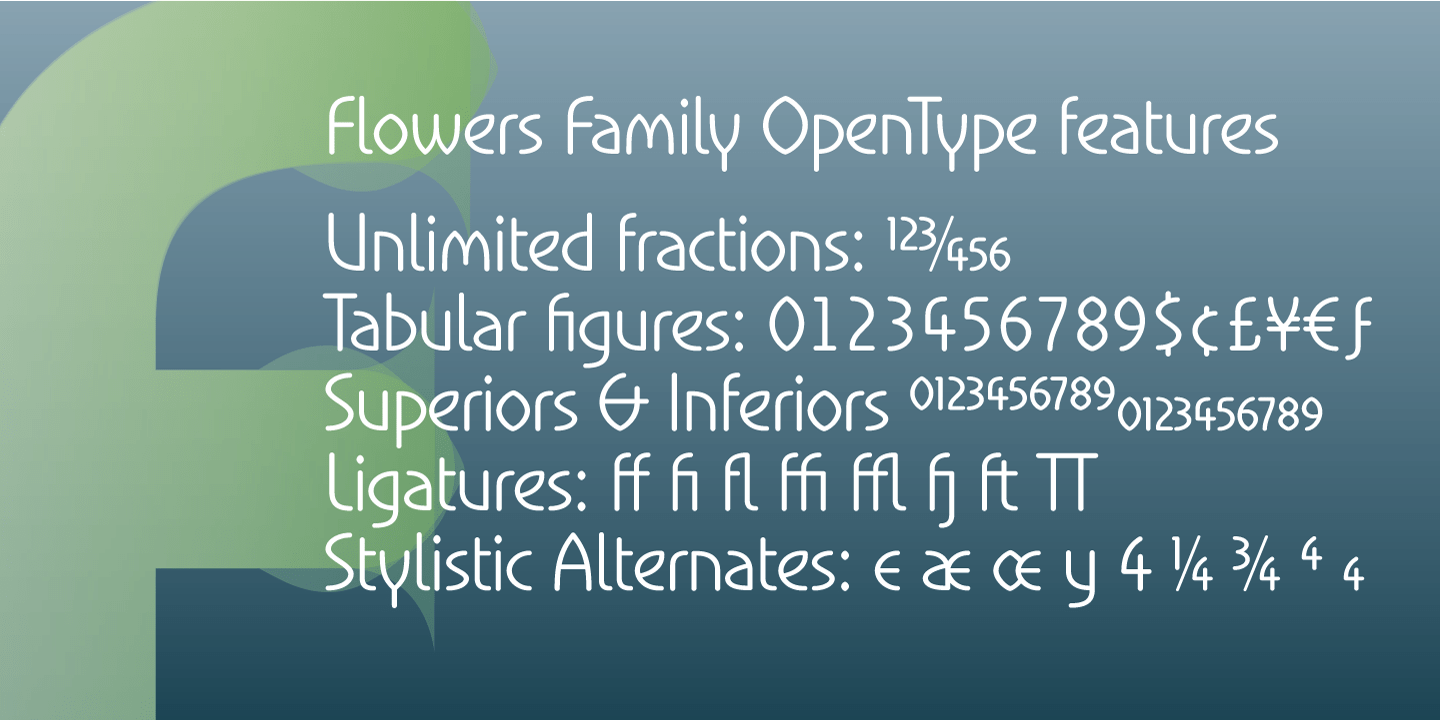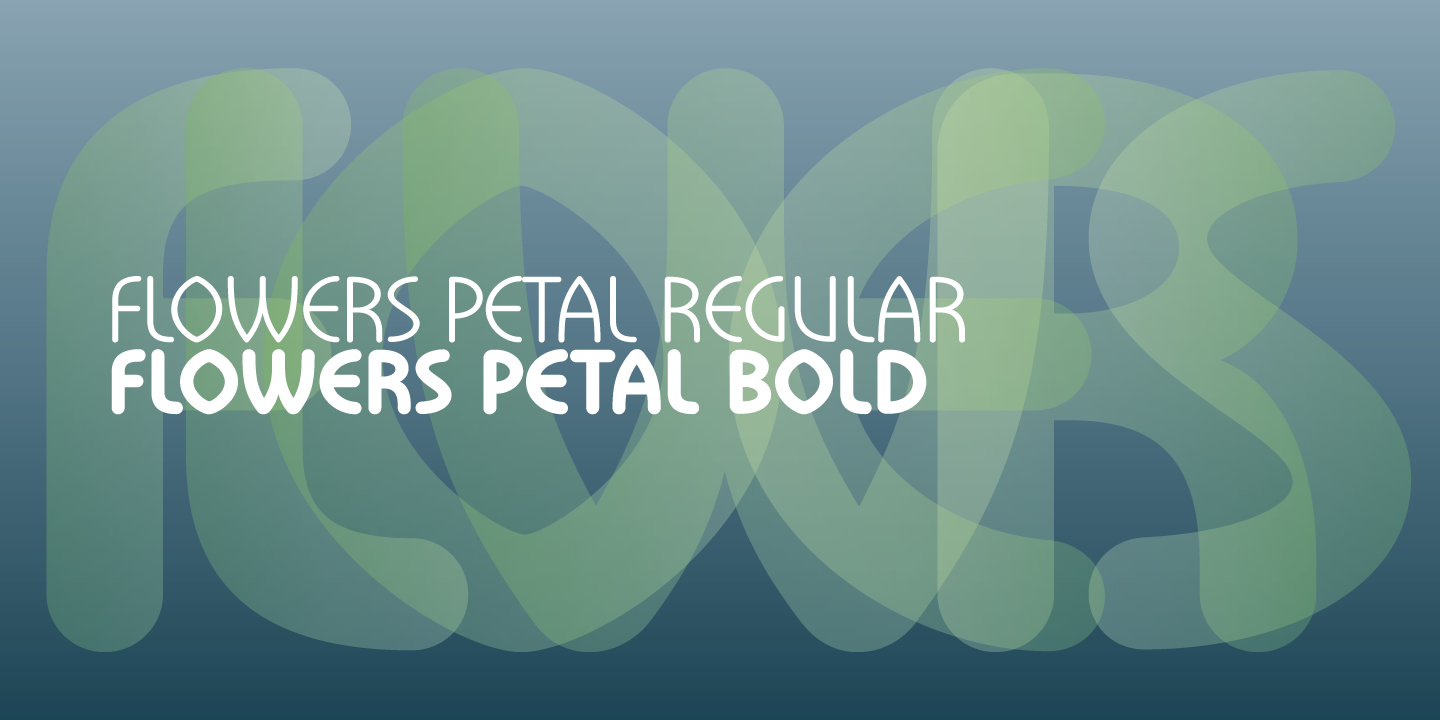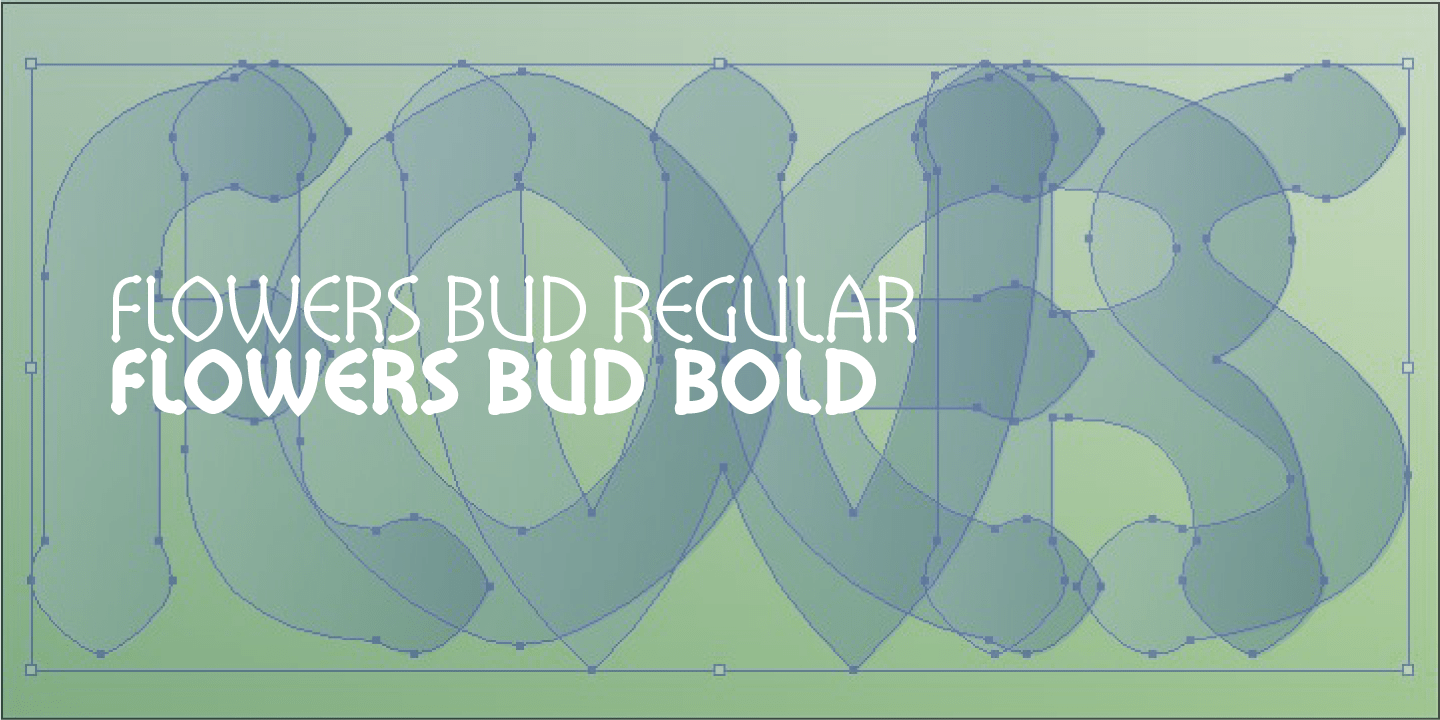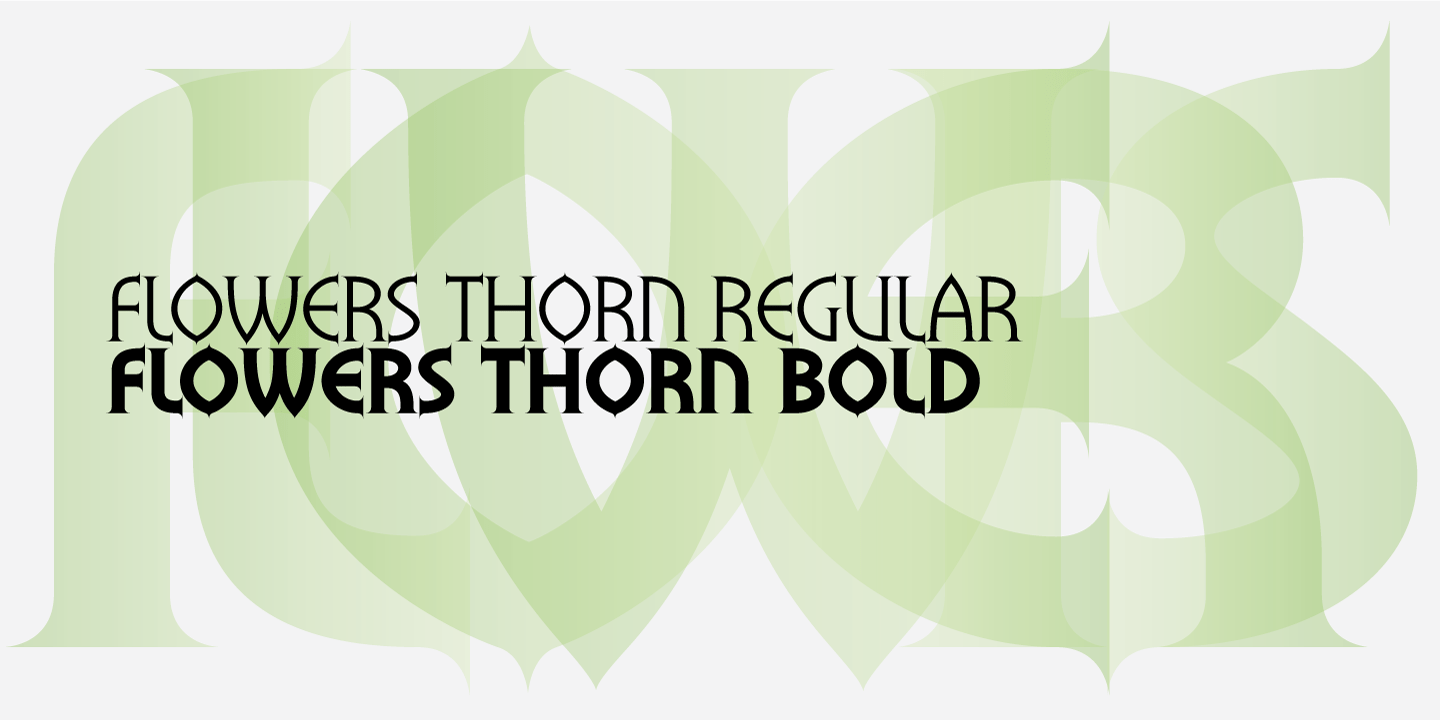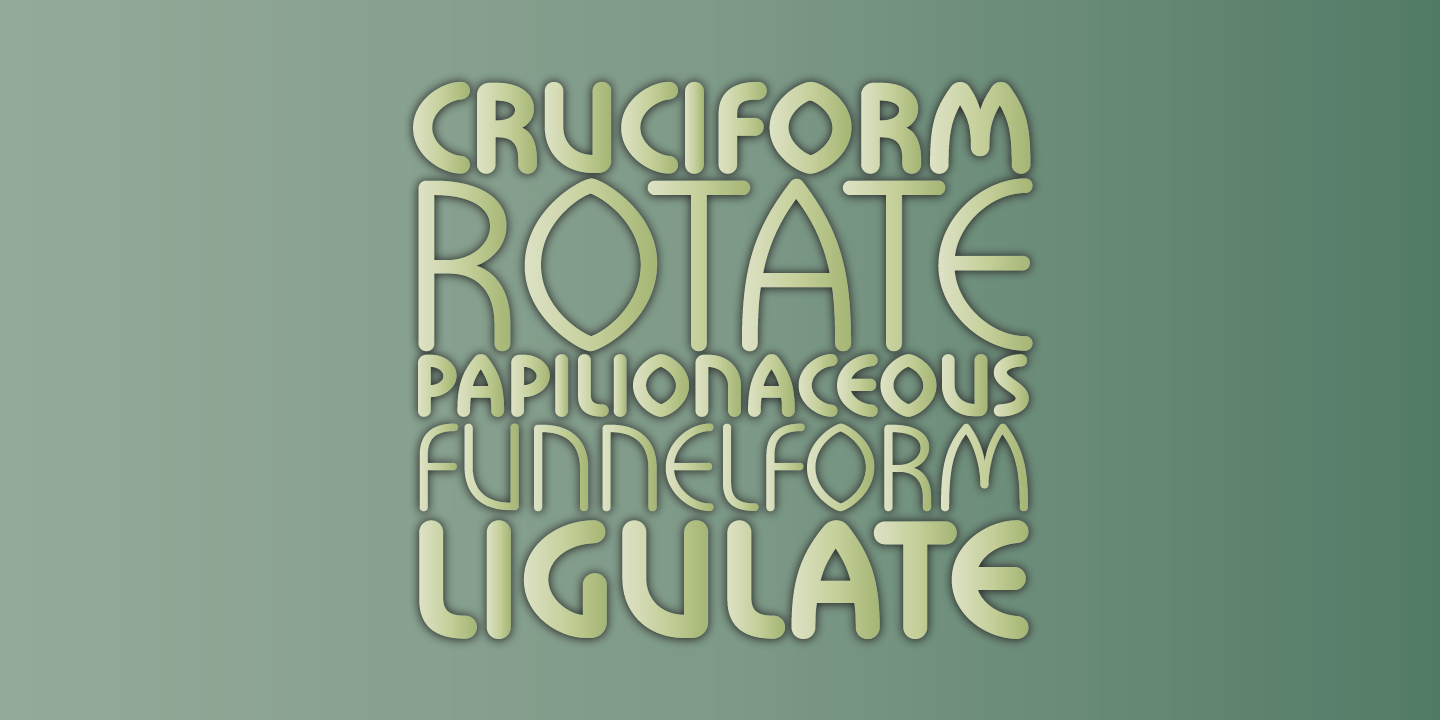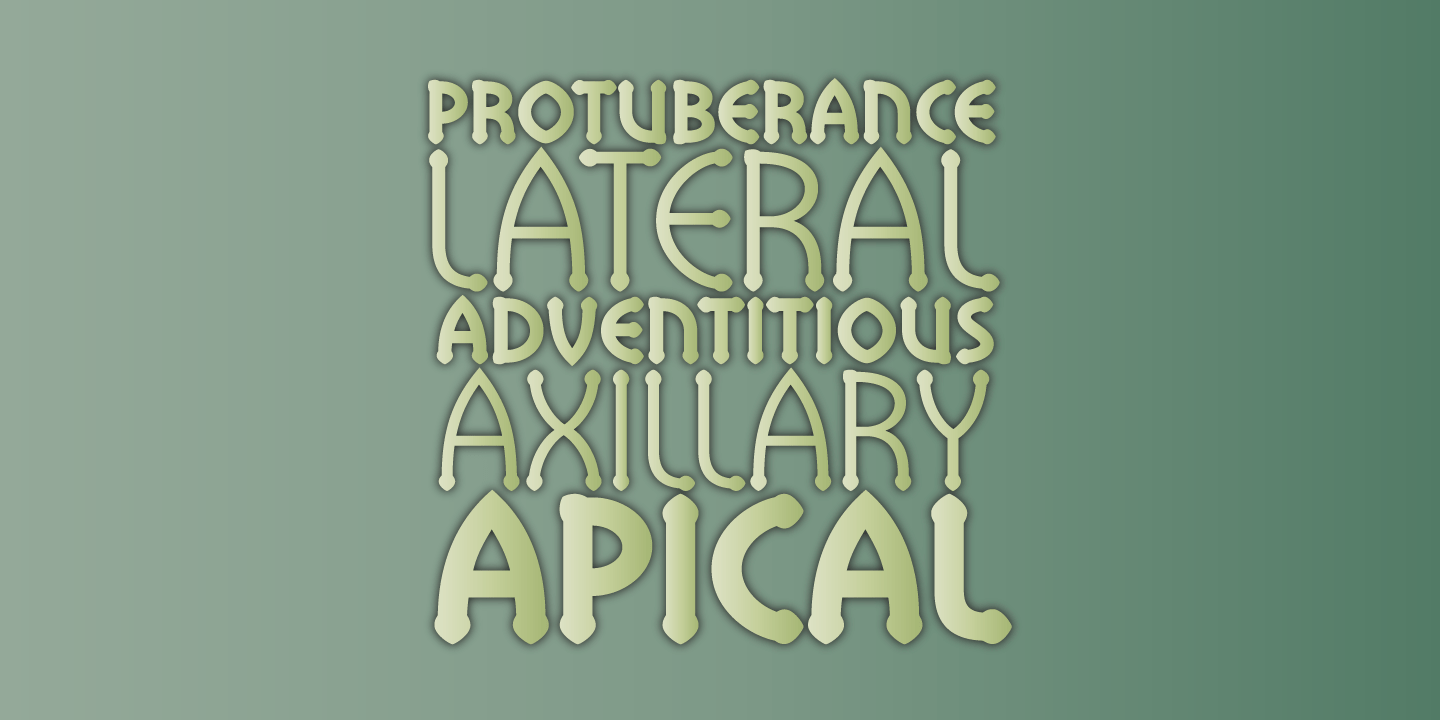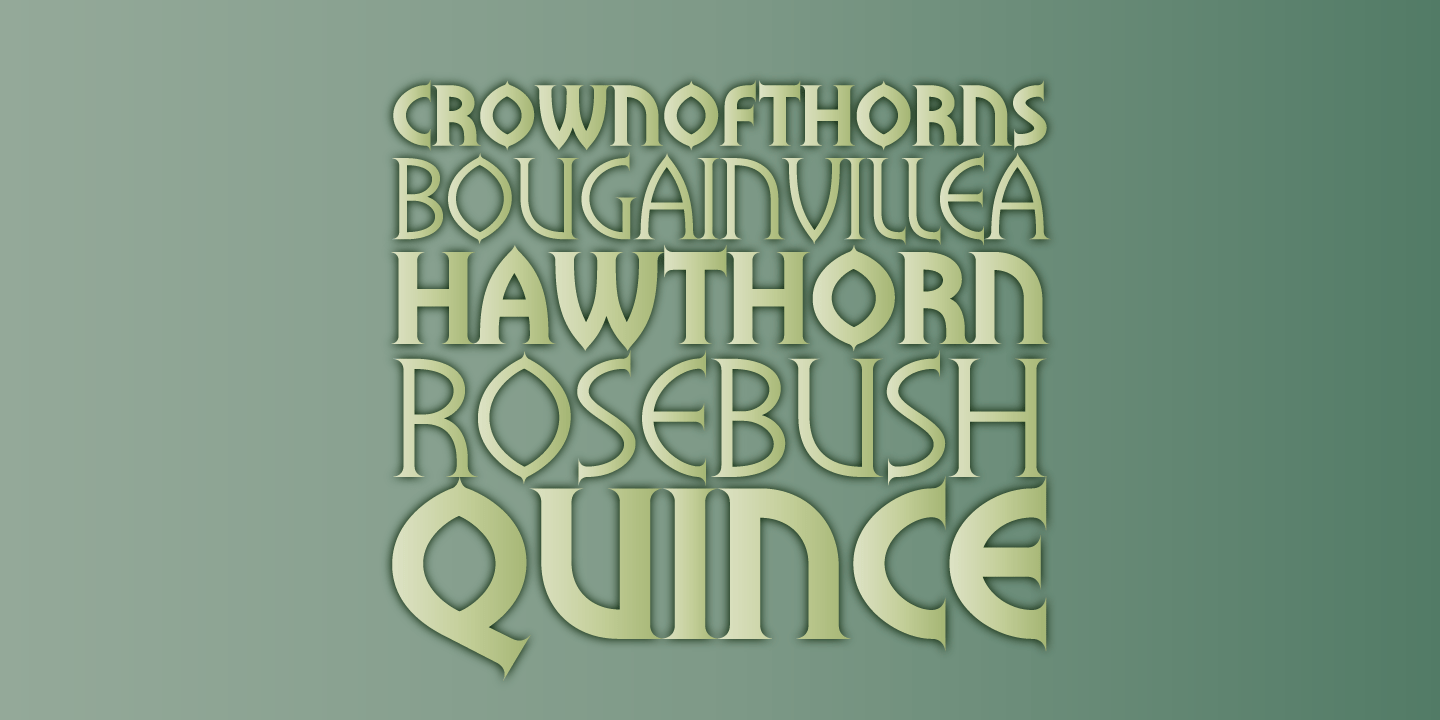
Flowers Family
Font Family by BluHead Studio
The Flowers Family is a collection of 3 typefaces in two weights, drawn by British designer Roy Preston. The Flowers fonts share a common clean and narrow design, with oval-shaped rounds and distinctive individual letter shapes that give each font a unique character all their own. Flowers Petal is the base typeface, essentially a sanserif with rounded terminal ends. Flowers Bud adds an inverted triangle shaped serif, and Flowers Thorn replaces that with an elegant pointed serif. All 3 typefaces are very legible and usable for text runs, and there are bold weights of each font for headlines and display applications.